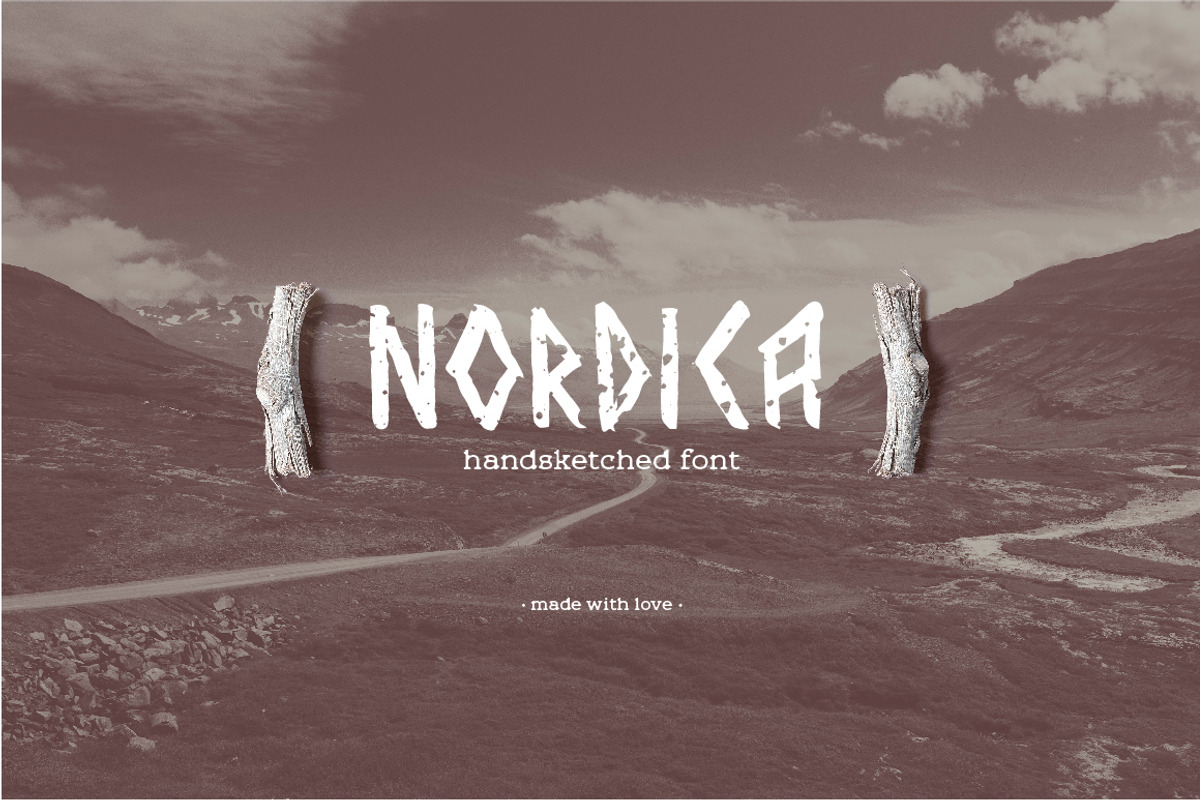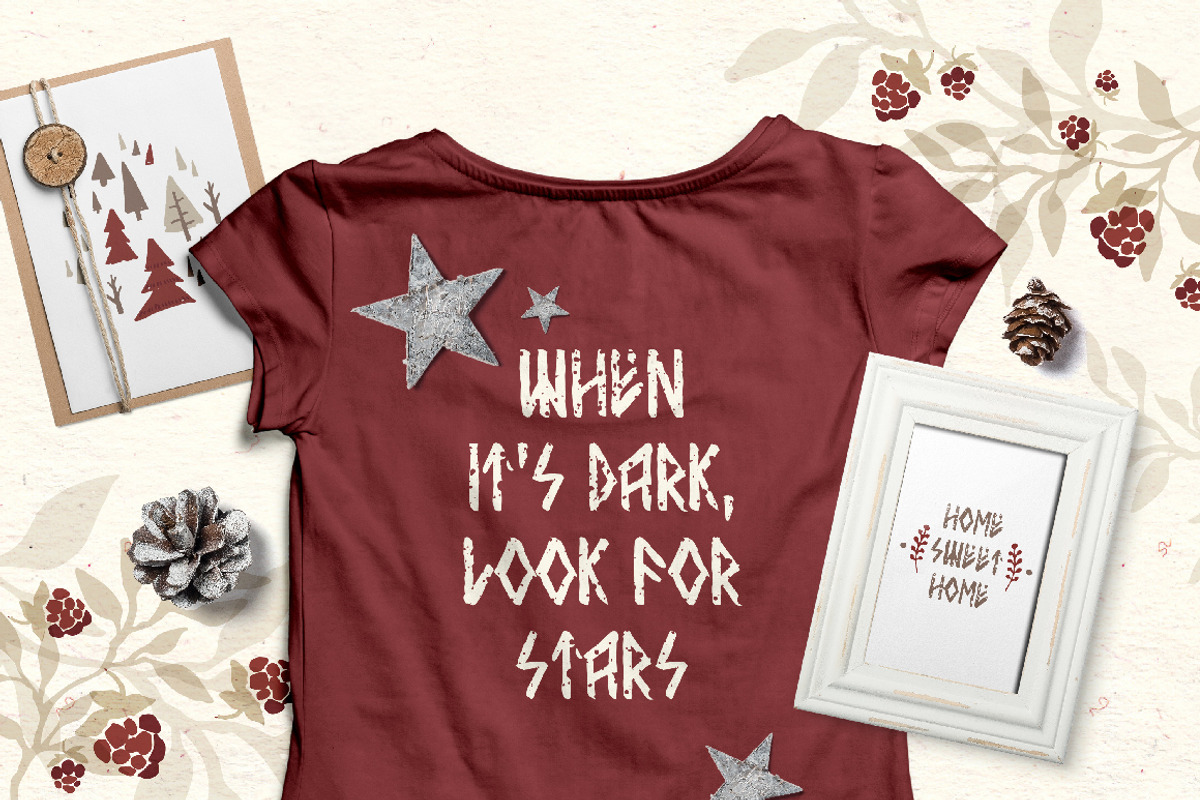
Nordica Font
Introducing Nordica - handsketched blackletter font.
This beautiful runic style typeface help you bring the Soul of the North into your design works! It's ideal font for giving your text that strong nordic touch. Great for typography posters, apparel design, branding and logo, greeting cards and invitations.
Nordica comes with upper-case only characters, numerals and basic punctuation.